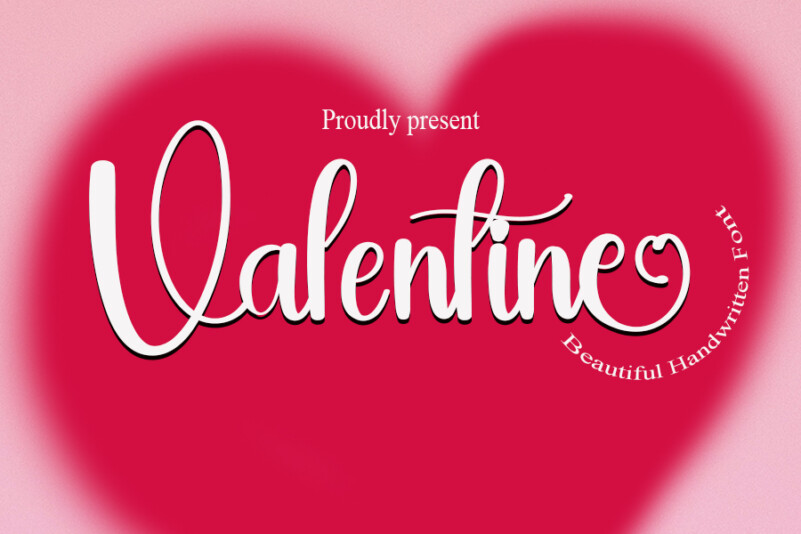
Valentine Calligraphy Font
Valentine Calligraphy Font is an elegant and bold display font, carefully handcrafted to become a true favorite. This font will look outstanding in any context, whether it’s being used on busy backgrounds or as a standalone headline!
inermediaSTUDIO